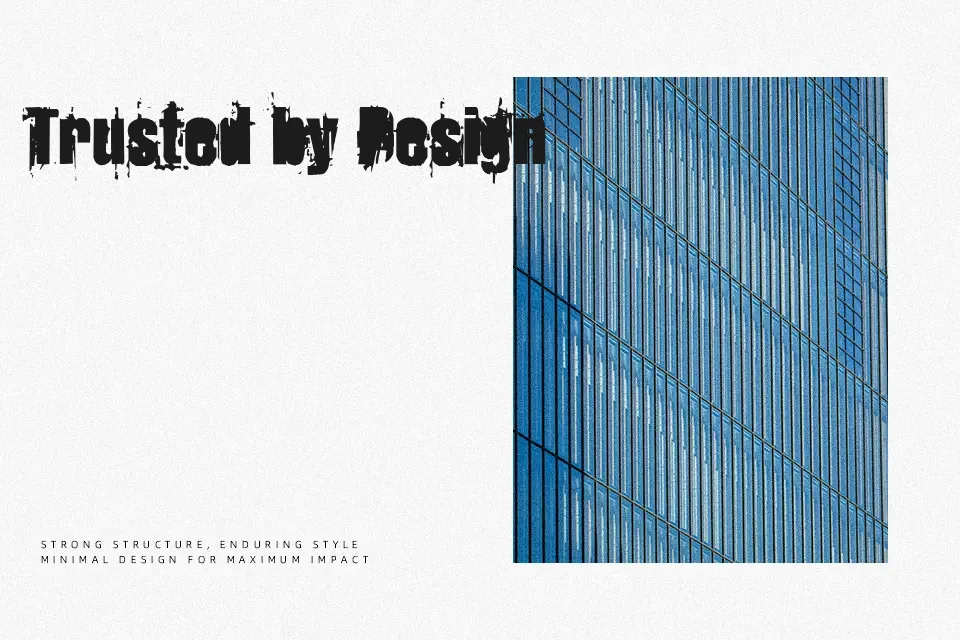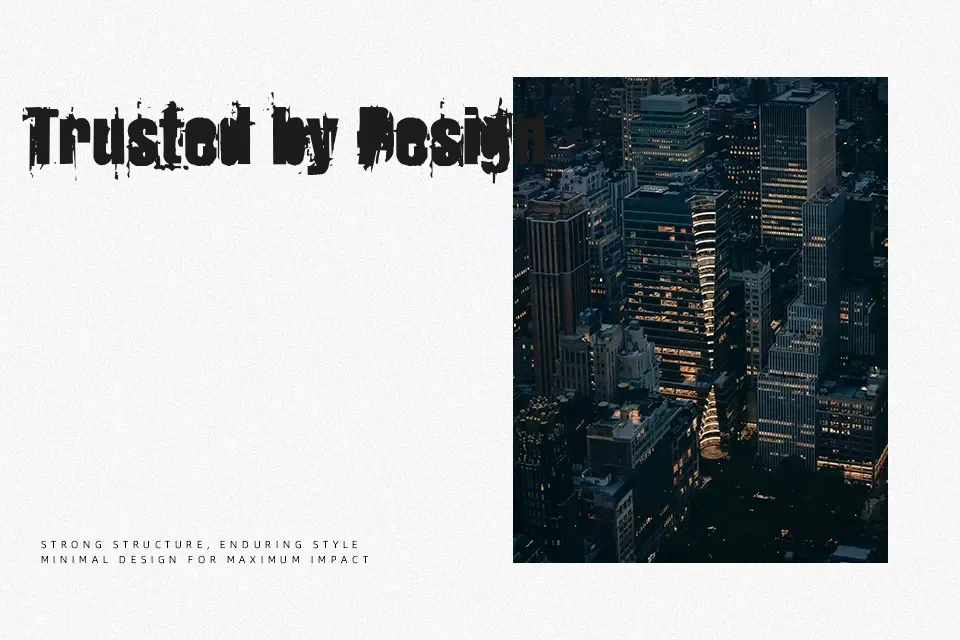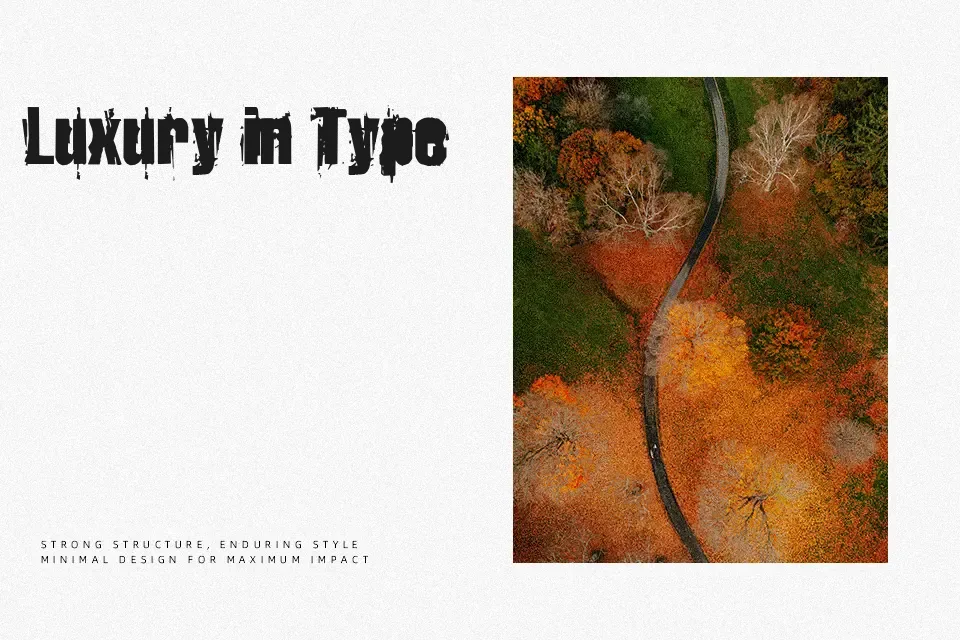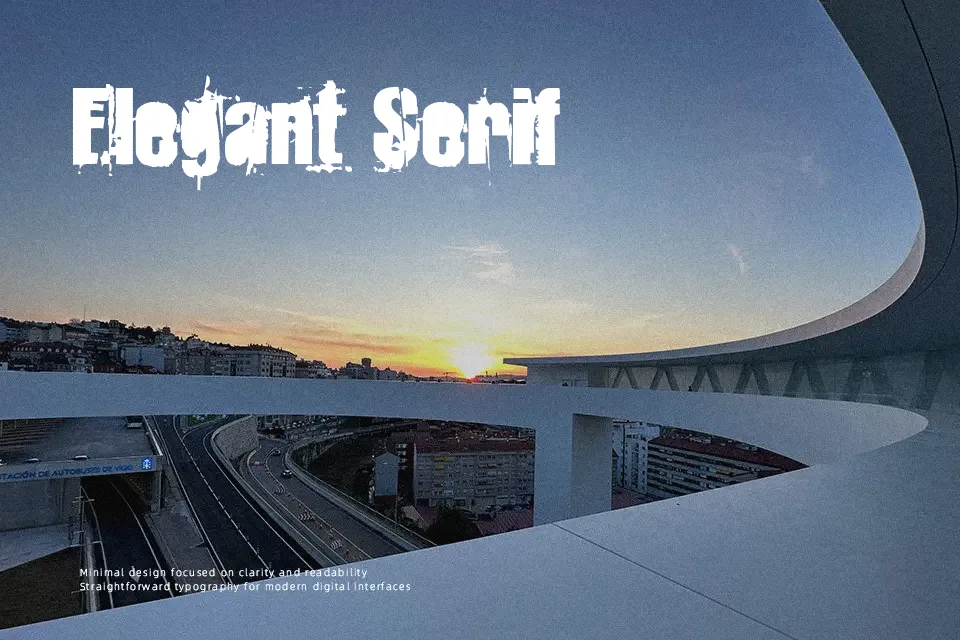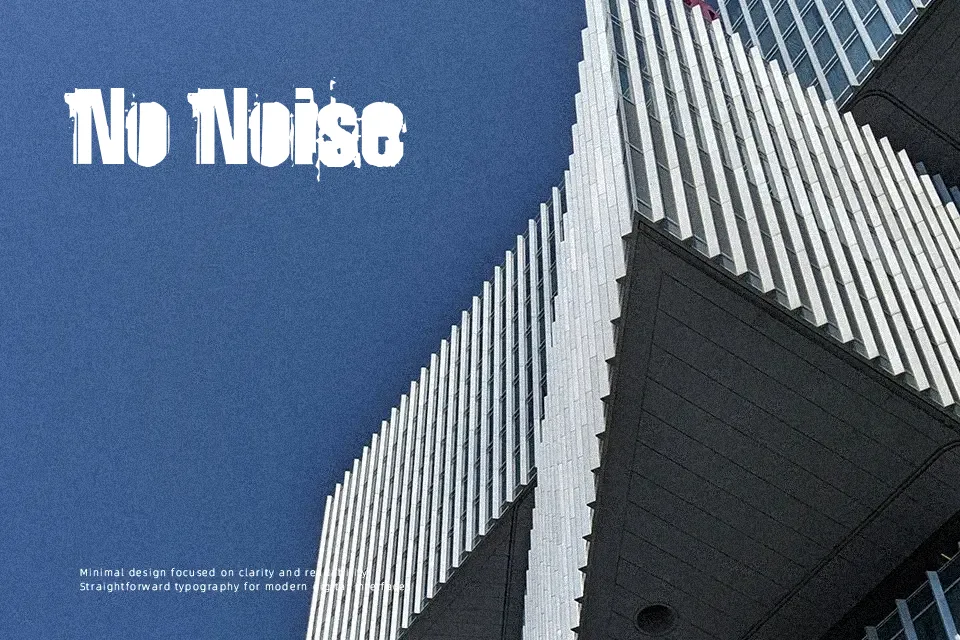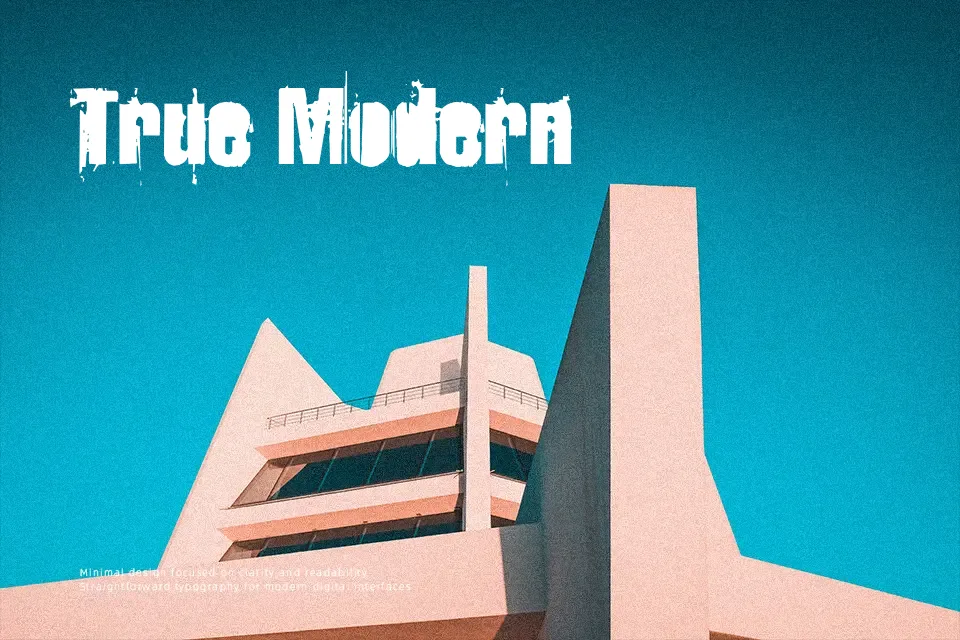
Strokey Bacon Font
Strokey Bacon Font features erratic, multi-layered linework that forms fragmented silhouettes across uppercase and lowercase characters. Each character exhibits uneven stroke density, jagged contour edges, and rough internal hatching, giving the overall design an eroded, distressed presence. Character spacing remains relatively loose to accommodate the sprawling scratch marks and maintain distinct character boundaries. In practical testing, the typeface achieves maximum impact when deployed in large display banners, album packaging, and thematic apparel graphics. However, the complex textured detail rapidly degrades into indistinct noise at small sizes. Consequently, the letterforms are unsuitable for continuous body copy or compact interface labels.
Best For: music festival posters, grunge album packaging, skate apparel graphics, horror movie titles
Not Ideal For: continuous body text, mobile interface labels, dense editorial layouts, technical documentation
Perfect for film, gaming, and headline, with a dark and decorative style.